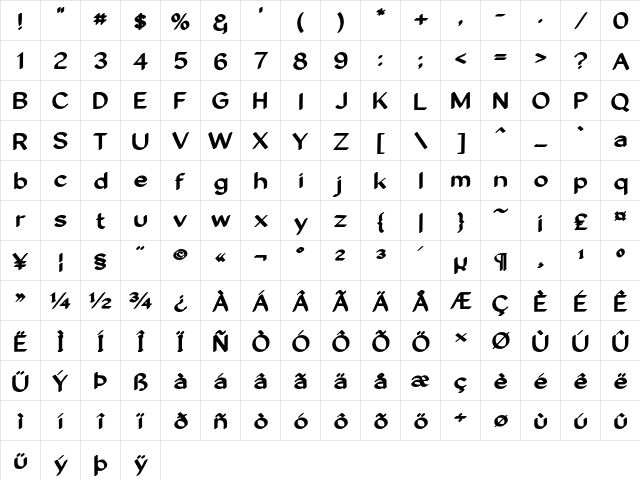
Likkle Expanded Regular
| Foundry | Graham Meade |
Design Context for Likkle Expanded Typeface
Likkle Expanded takes a measured approach to typography — its balanced proportions and neutral character make it a reliable workhorse for both digital and print work.